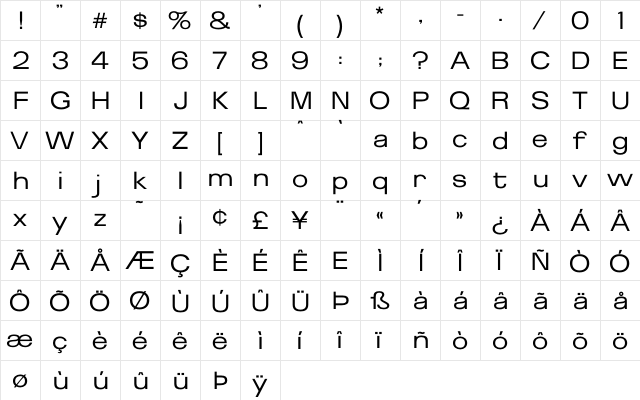
Brazilia Regular
Design Context for Brazilia Typeface
Brazilia takes a measured approach to typography — its balanced proportions and neutral character make it a reliable workhorse for both digital and print work.